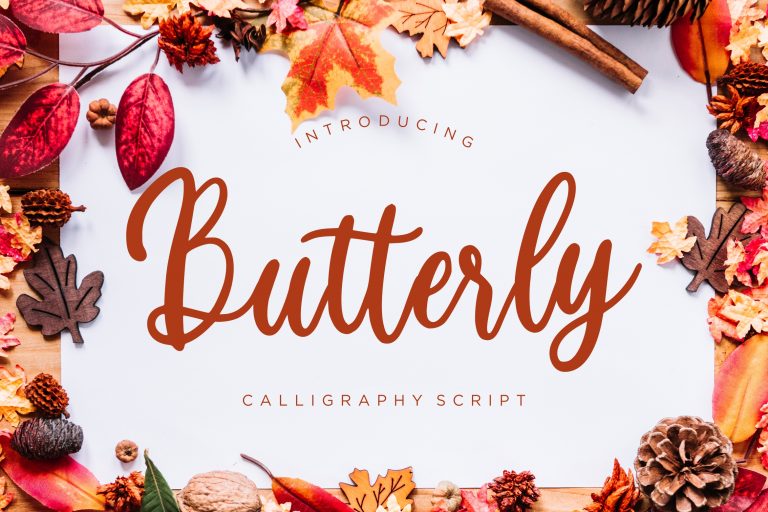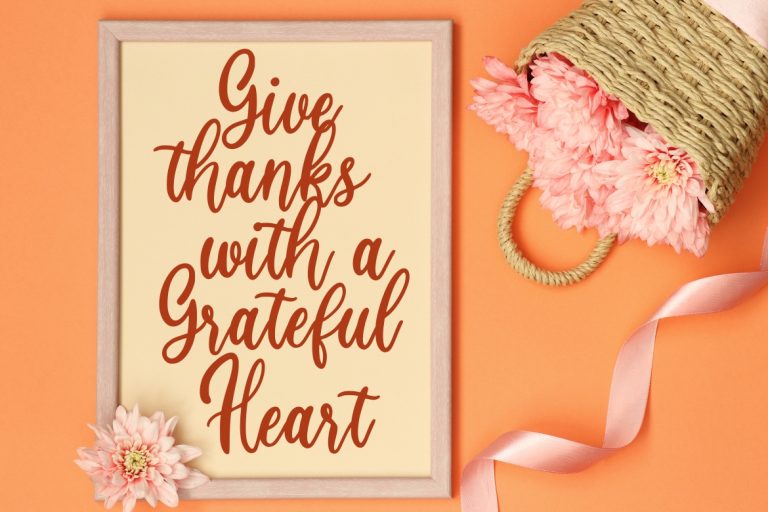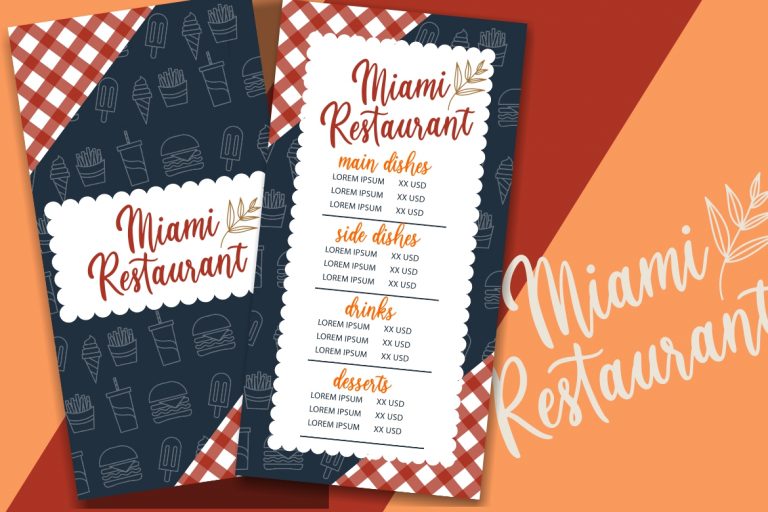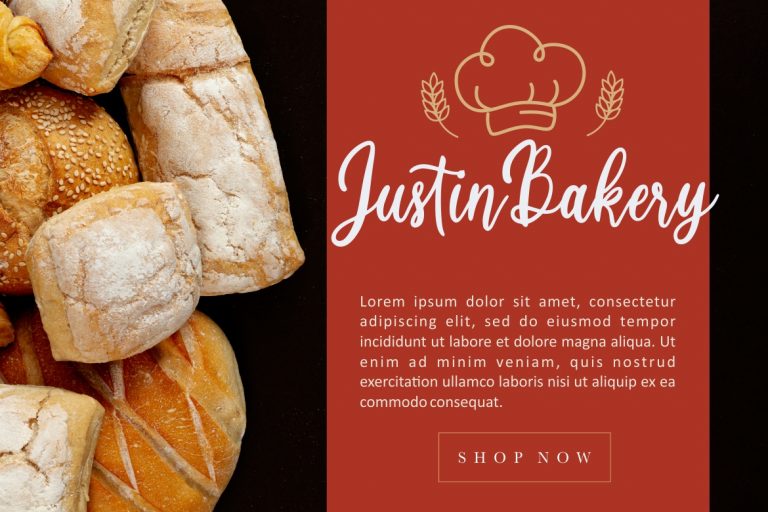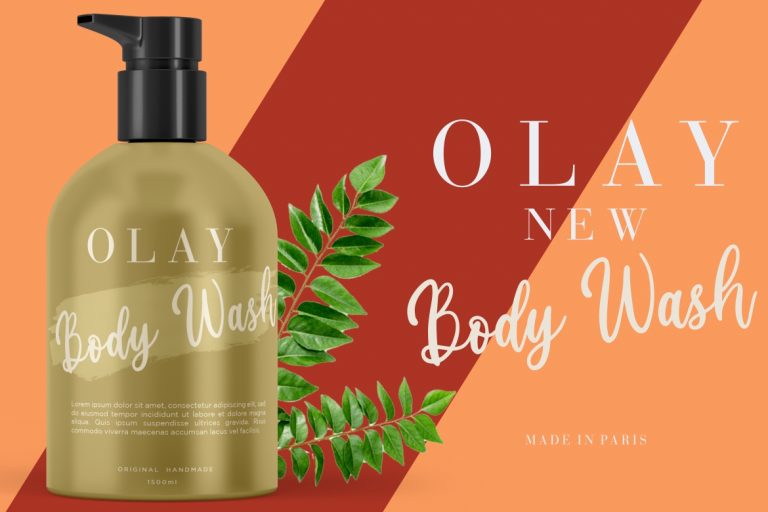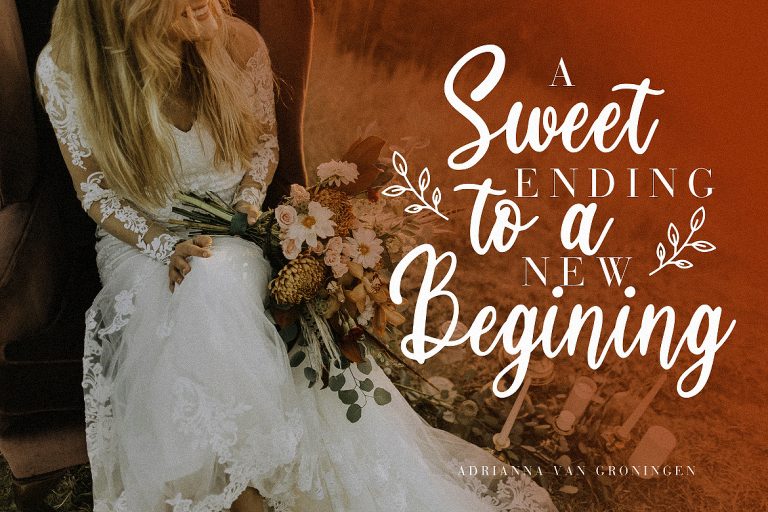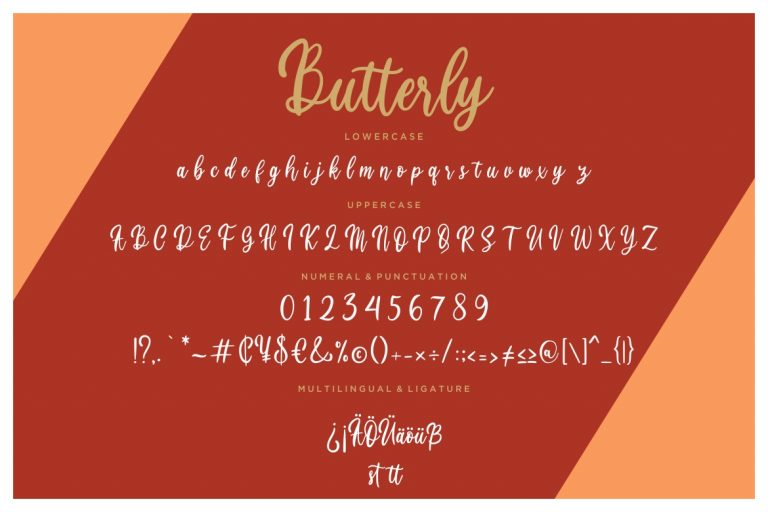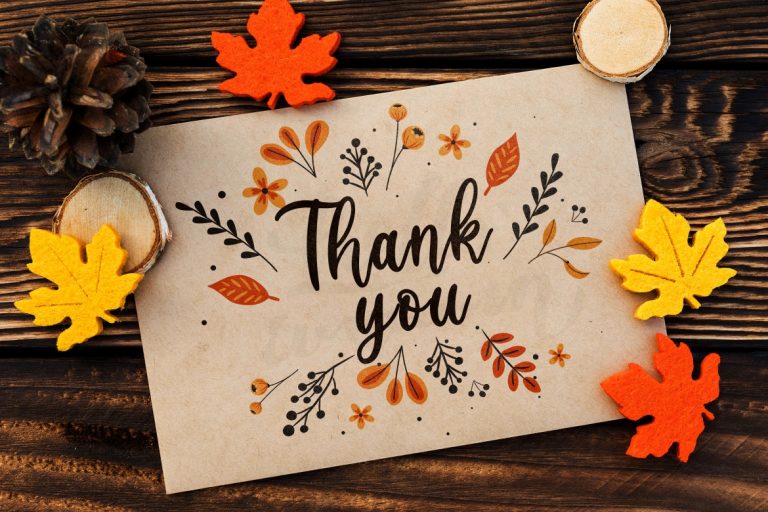
Butterly is calligraphy script font that elegant and classy looks.
Butterly is perfect for branding projects, logo, wedding designs, social media posts, advertisements, product packaging, product designs, label, photography, watermark, invitation, stationery and any projects that need handwriting taste.
• Fonts include multilingual support for; ä ö ü Ä Ö Ü ß ¿ ¡
Butterly Calligraphy Script